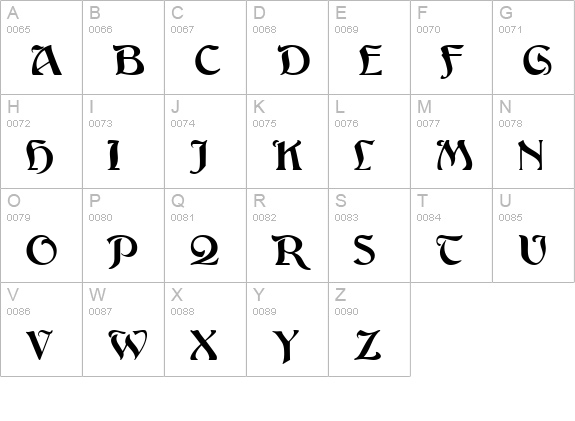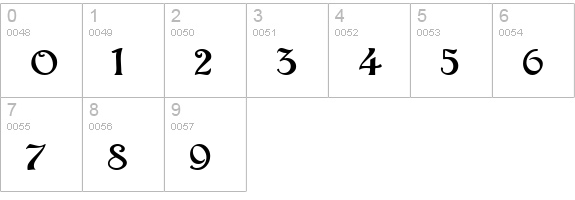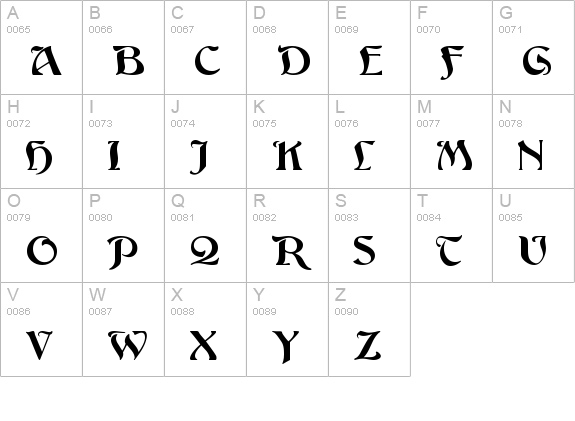
Argos MF is a modern and stylish font that adds a touch of sophistication to any project. With its sleek lines and elegant curves, this font is perfect for creating eye-catching designs that stand out from the crowd. Whether you're working on a logo, print materials, or website, Argos MF will elevate your work to the next level. The best part? Argos MF is completely free to download at FontsMarket.com. Now you can enjoy this premium font without breaking the bank. Don't miss out on the opportunity to enhance your projects with the beauty and versatility of Argos MF. Download it today and let your creativity soar.